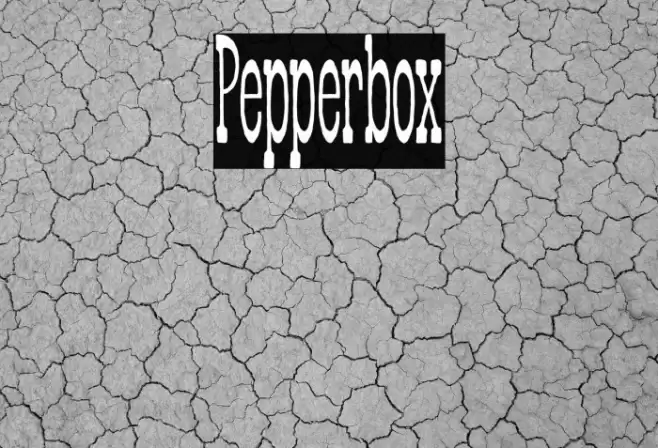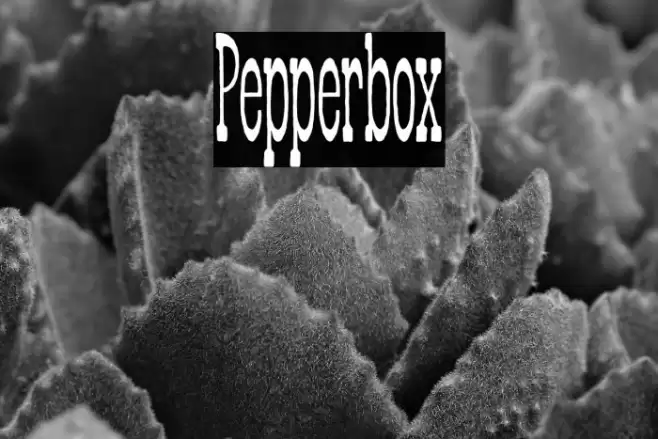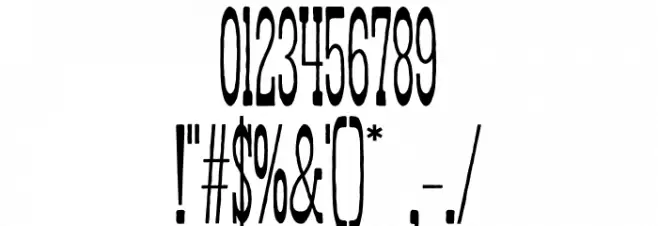
Pepperbox Font
Pepperbox Description
This font features a bold and decorative style with a unique, playful character. The letters are tall and narrow, with rounded ends that give them a distinctive appearance. The uppercase and lowercase letters maintain a consistent height, contributing to a cohesive look. Numbers and special characters follow the same design principles, ensuring uniformity across all glyphs. The font's quirky and bold nature makes it stand out, ideal for projects that require a touch of whimsy and creativity.
A bold, decorative font with tall, narrow letters and rounded ends from Uncategorized fonts.
- Proposed Projects: Perfect for posters, headlines, branding, and any design needing a playful, eye-catching typeface.